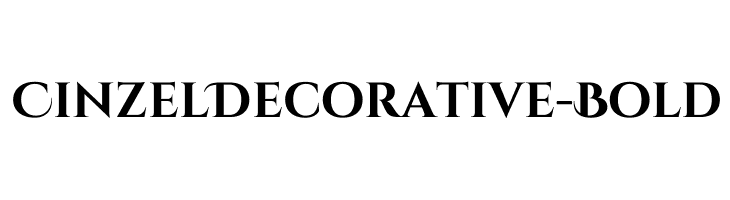
A bold serif font with strong strokes and elegant curves, exuding a classic Roman influence.
A bold, elegant serif font with a classic Roman influence.
A classic serif font with high contrast and elegant details.
A bold, decorative font with high contrast and elegant flourishes.
A bold, decorative serif font with elegant, flowing details.
A classic and elegant serif font with decorative flourishes.
A classic serif font with modern elements, offering elegance and readability.